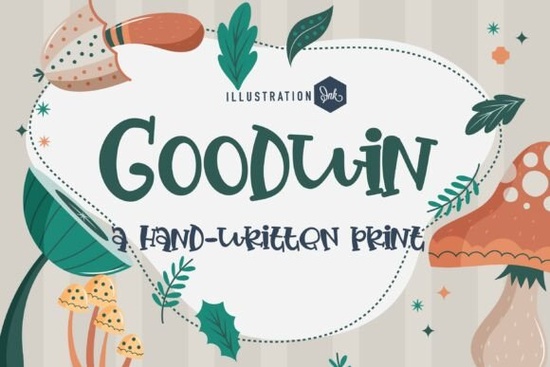
If you've been searching for a display typeface that feels like it grew straight out of a storybook forest, Goodwin is worth a close look. This whimsical display font blends hand-inked warmth with sharp modern curves, making it a strong fit for botanical branding, nursery artwork, and cottagecore packaging. It carries enough personality to stand out on a product label while still staying readable at display sizes.
What makes Goodwin feel different from other whimsical fonts?
A lot of "whimsical" typefaces lean too far into novelty they look fun for five minutes and then become hard to use in real projects. Goodwin avoids that trap. The letter paths have varied line weights and a kind of organic volume that gives each character a hand-drawn quality without feeling sloppy. The curves are modern and intentional, and the mixed-case design means you can play with uppercase and lowercase combinations to control the mood of your layout.
There's a fairy-tale posture baked into the design, but it doesn't read as childish. It sits somewhere between a classic storybook illustration and the kind of earthy, handcrafted branding you'd find on a small-batch skincare shelf. That balance is what makes it practical you can use it for a children's book cover or a premium organic food label without it feeling out of place.
What kinds of projects work well with this font?
Goodwin is a display font, which means it's built for headlines, titles, logos, and short bursts of text not long paragraphs of body copy. Here are some projects where it really shines:
- Botanical skincare packaging Its earthy, organic feel pairs naturally with botanical ingredients and natural product lines.
- Nursery wall art and storybook titles The fairy-tale quality works beautifully for children's room decor and book covers.
- Organic food labels Think artisan honey jars, small-batch granola, or farm-to-table product branding.
- Social media graphics Bold, eye-catching quotes and promotional posts for lifestyle or nature-focused brands.
- Cottagecore and forest-themed merchandise T-shirts, tote bags, stickers, and print-on-demand products with a woodland aesthetic.
- Wedding invitations and event stationery Especially for outdoor, garden, or rustic-themed events.
If you work in print-on-demand, a font like Goodwin can help your designs feel more cohesive and intentional. Rather than using generic system fonts, a specialty display typeface gives your products a distinct look that's harder to replicate.
How does Goodwin compare to other display fonts on Creative Fabrica?
It depends on the vibe you're going for. If you want something bolder and more playful, Lion Crunch brings a chunky, fun energy that works great for kids' products and party themes. For a cleaner, more structured display option, Aaksaraan Nordhavn offers a modern Scandinavian feel that's well-suited for minimalist branding.
If your project leans more retro or street-style, Main Street Traffic has a vintage signage quality that fits perfectly with diner menus, retro logos, and classic Americana designs. And for something with a bit more typographic texture, Digital Match brings a creative edge that pairs nicely with tech and lifestyle content.
Goodwin occupies its own niche it's softer, more organic, and more nature-rooted than most display fonts you'll find. If your project calls for warmth and whimsy rather than bold impact or geometric precision, it's the right tool for the job.
Is Goodwin a good fit for your next project?
If your brand or design work connects with nature, storytelling, handcrafted goods, or an organic aesthetic, Goodwin is a strong match. It's not trying to be everything it does one thing well, and that's a good quality in a display typeface. The hand-inked character and woodland personality make it easy to create designs that feel warm and authentic without looking amateur.